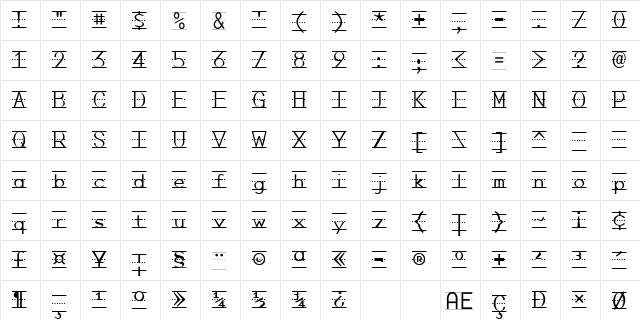
Penmanship Print Regular
Design Context for Penmanship Print Typeface
Penmanship Print is a composed and adaptable typeface that performs quietly and consistently across a wide range of design contexts.